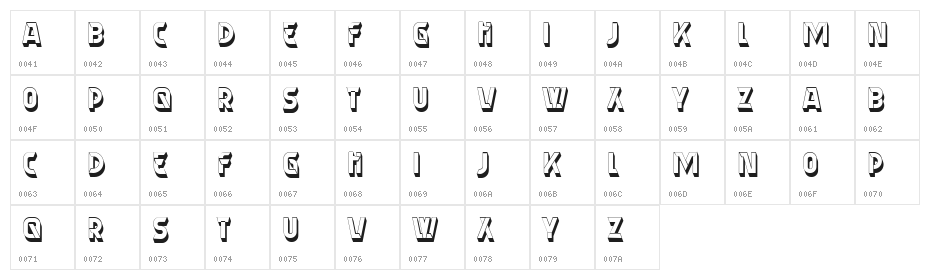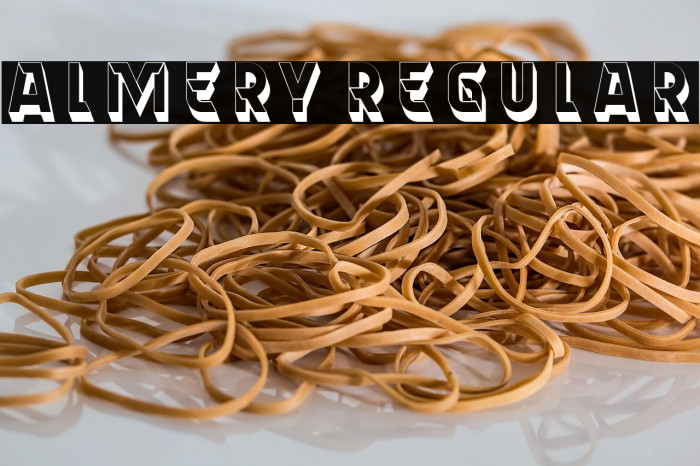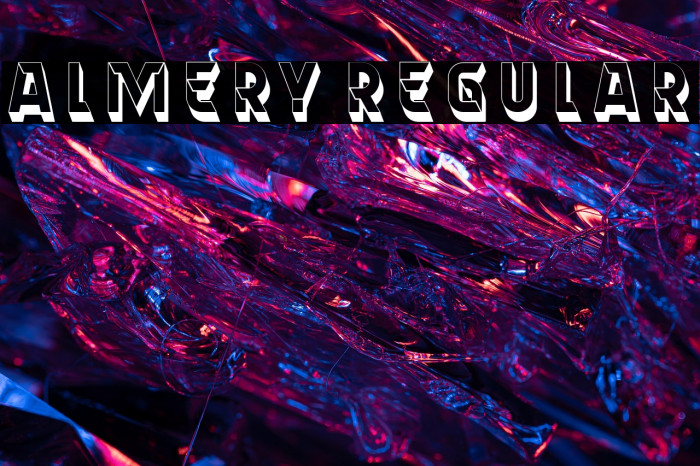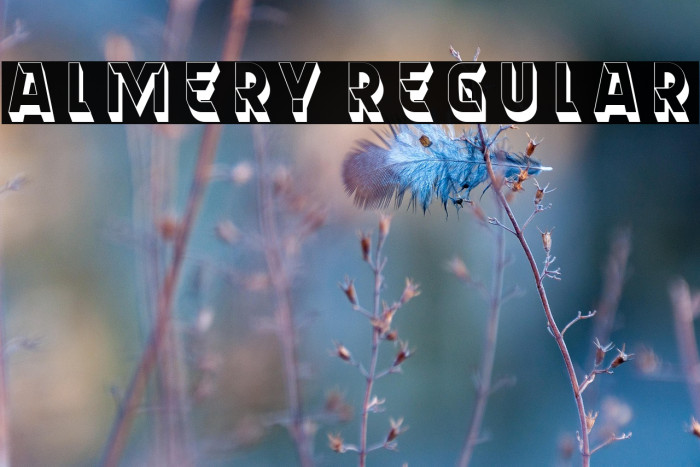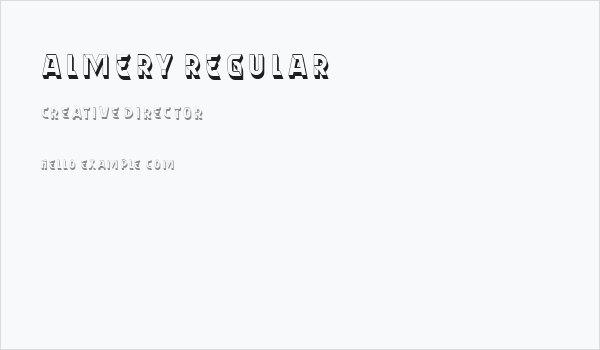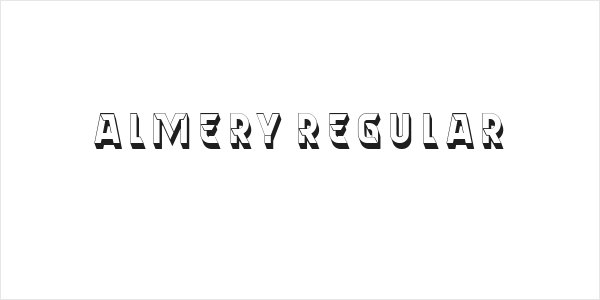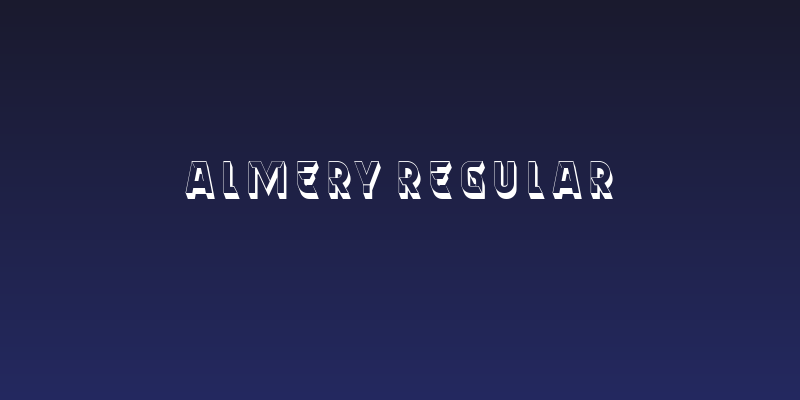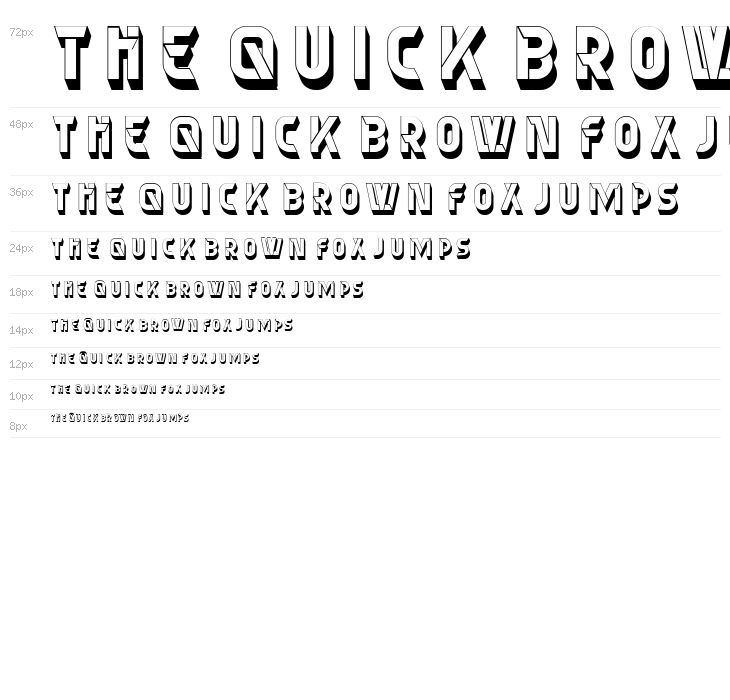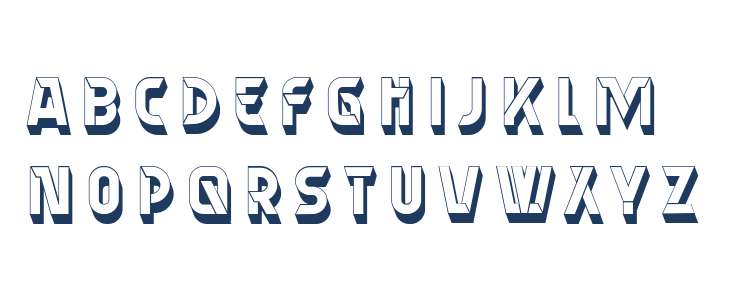
Almery Regular Font
Almery Regular Description
This font features a bold, three-dimensional style with a shadow effect that gives it a striking and dynamic appearance. The characters are uppercase only, with a geometric and angular design that emphasizes strong lines and sharp edges. The shadow effect adds depth, making it ideal for eye-catching headlines or titles. Each letter is distinct, with a consistent width and height, ensuring uniformity across the typeface. The design is modern and playful, suitable for projects that require a bold statement.
| Proposed Projects | Ideal for posters, logos, headlines, and any design needing a bold, modern look. |